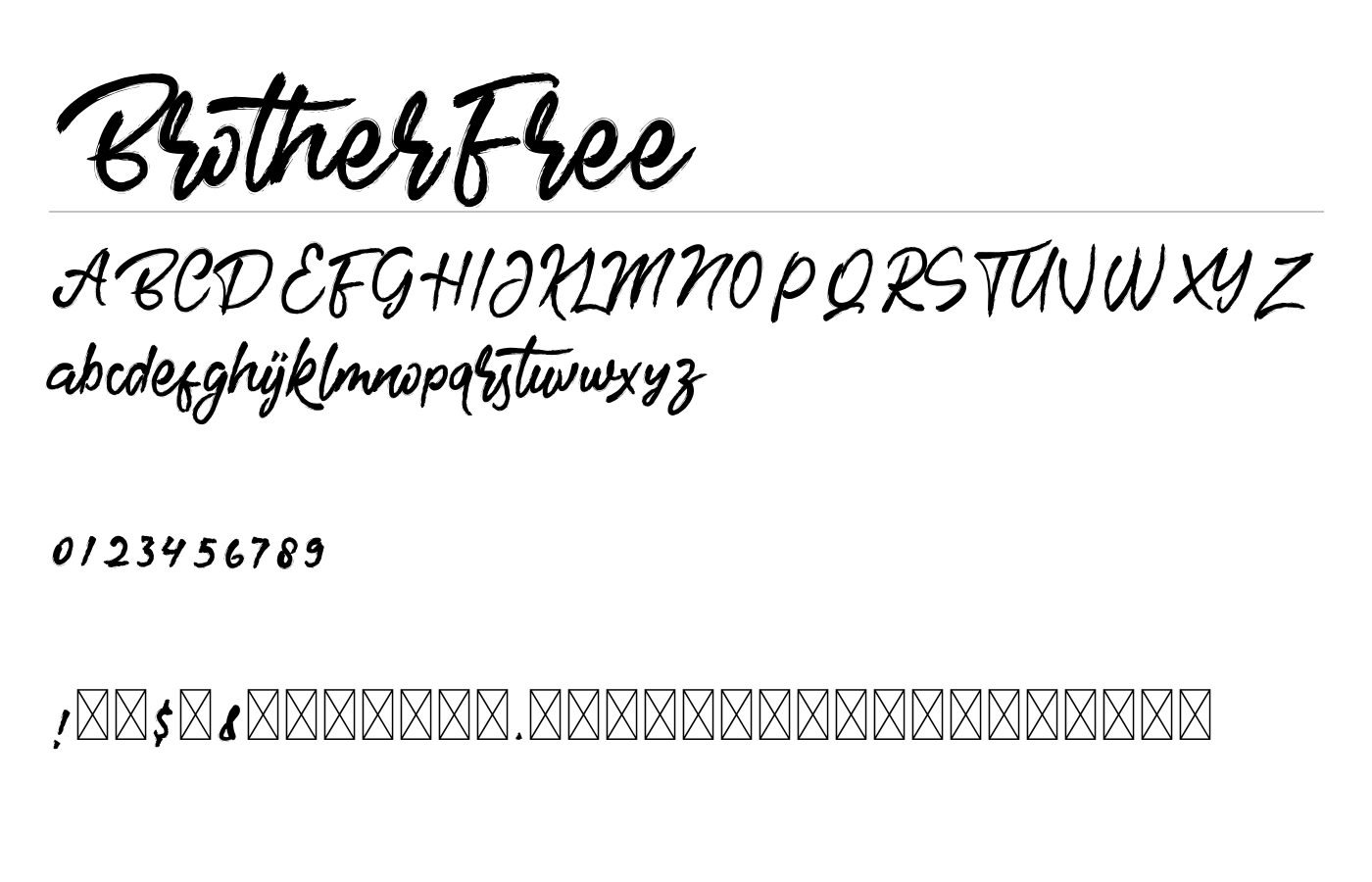
BrotherFree Font is a casual, brush-script style font that features an organic, hand-painted look with dynamic stroke variations and a flowing, lively rhythm. Its slightly irregular letterforms and subtle texture convey a friendly and approachable personality, making it ideal for artistic branding, invitations, and informal headlines where a personal, creative touch is desired. This font works best in designs aiming for warmth and originality, such as social media graphics, poster titles, and lifestyle packaging.
BrotherFree Font